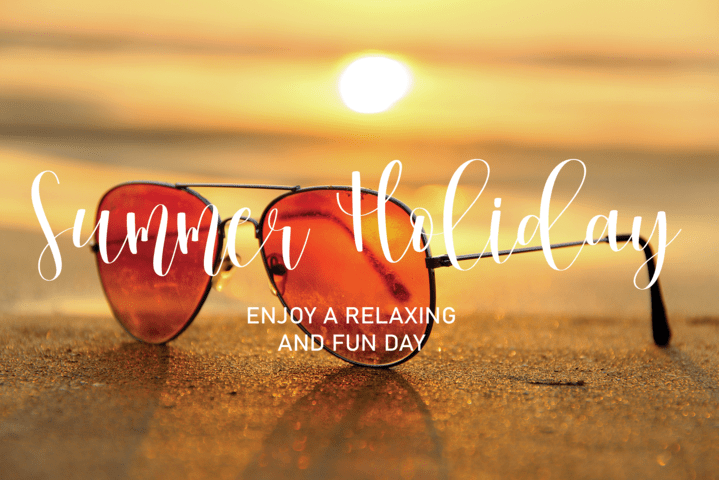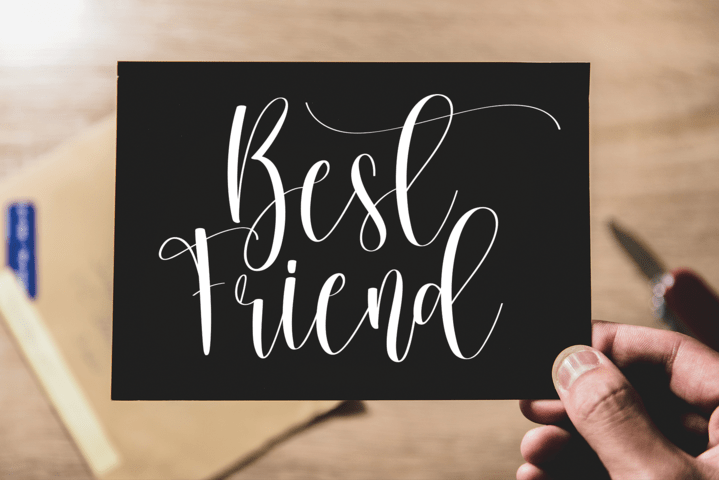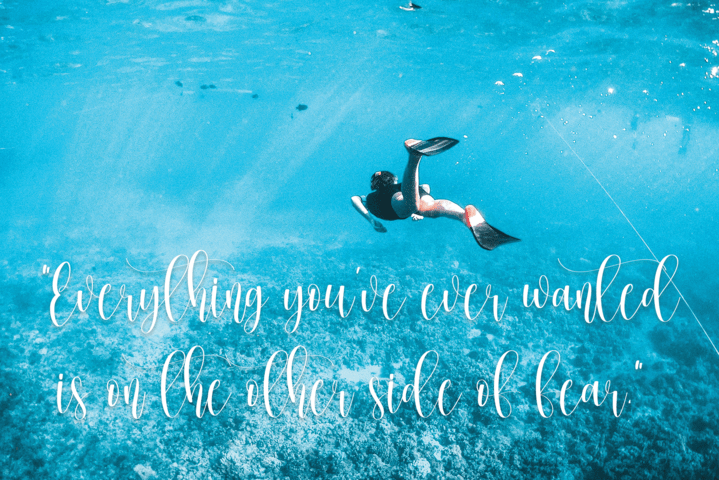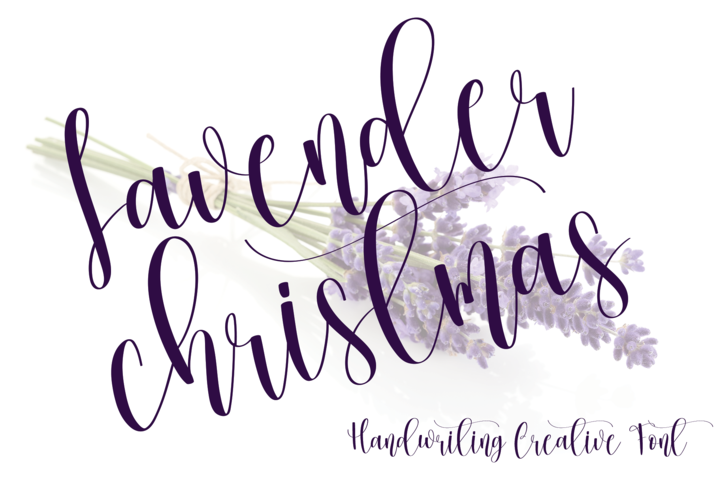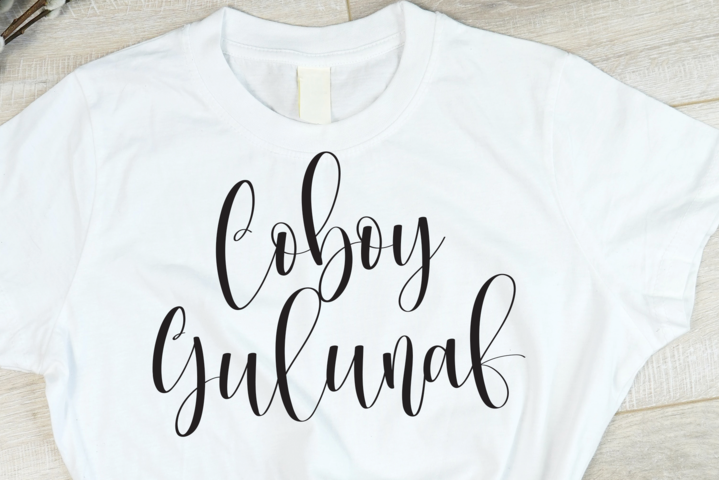
Lavender Christmas Script Font
It’s a creative handwriting font that will look great on wall displays, wedding invitations, social media post logos, advertisements, product packaging, product designs, labels, photography, watermarks, invitations, and stationery.